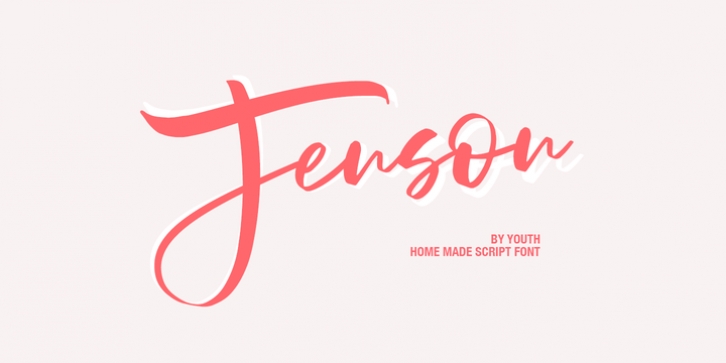
Introducing the elegant new Jenson Font! For those of you who are needing a touch of elegance and modernity for your designs, this font was created for you!
Jenson was built with OpenType features and includes beginning and ending swashes, alternate swash characters for most lowercase letters, numbers, punctuation, alternates, ligatures and it also supports all latin languages :)